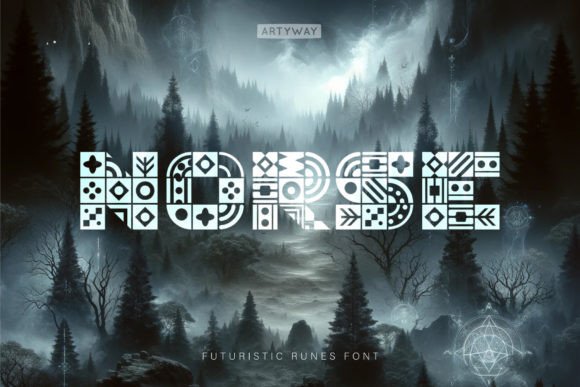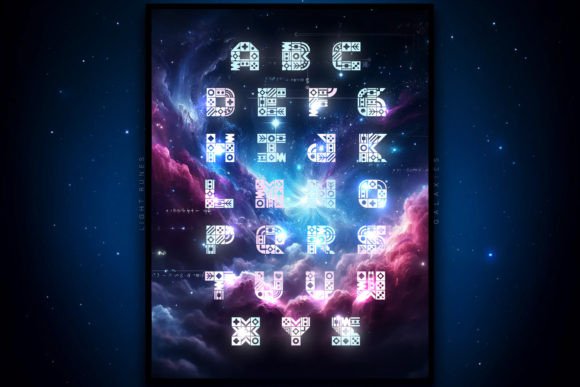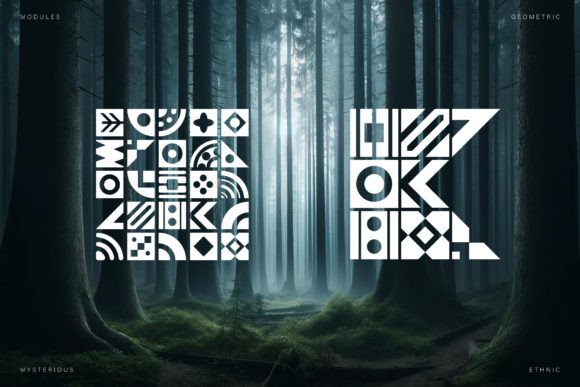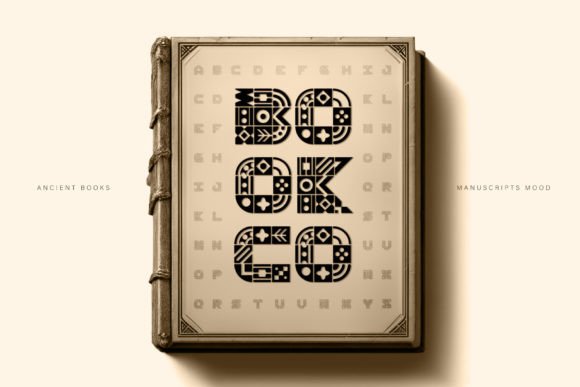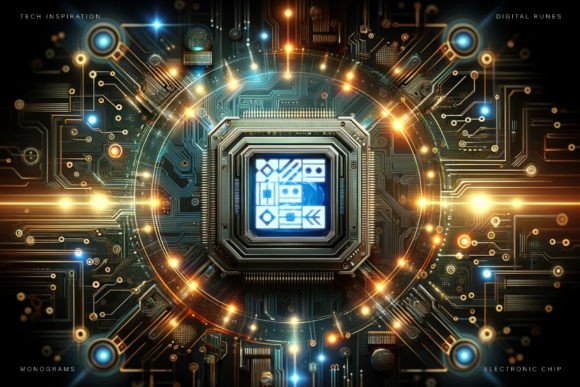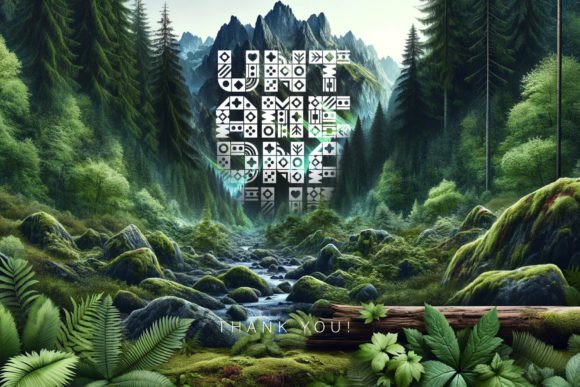
Norse Ancient Alphabet Font
The Norse font — a perfect blend of ancient mysticism and modern design. Unveil the Mystique and techno-futurism.
This font encapsulates the enigmatic allure of runes, reimagined through a contemporary lens, making it an essential tool for designers and artists who wish to evoke a sense of intrigue and timeless mystery in their creations. Each character in the Norse Font is crafted with a combination of geometric shapes and traditional rune symbols, providing a sleek and stylized aesthetic that stands out in any visual composition.
Ideal for thematic game design, esoteric book covers, product packaging, and mystical event invitations and also techno futuristic monograms and headlines. Its unique look ensures your projects capture the imagination and curiosity of viewers. Norse Ancient Font